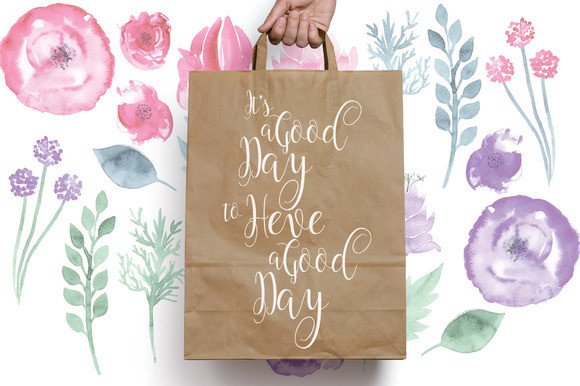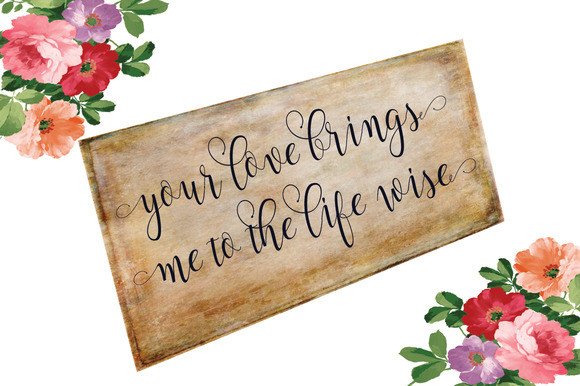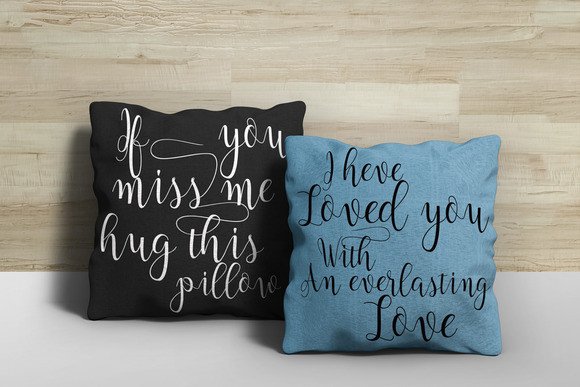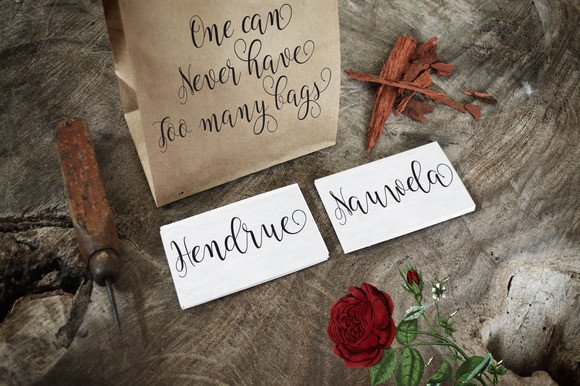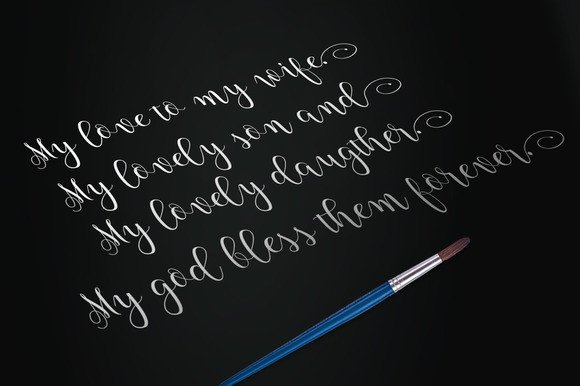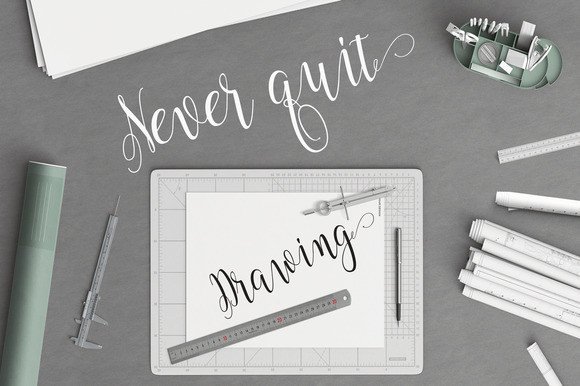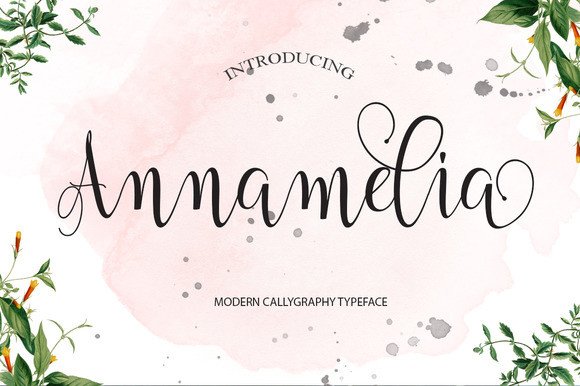
Introducing Annamelia Font: A Handmade Calligraphy Marvel for Modern Designs
In the realm of typography, few fonts manage to capture the essence of handcrafted elegance while being versatile enough for modern design applications. Annamelia Font stands out as a beacon of uniqueness, offering a refreshing blend of natural writing styles and contemporary flair. This article delves into the characteristics, applications, and benefits of using Annamelia Font in your design projects, making it a must-read for designers, crafters, and typography enthusiasts alike.
The Unique Charm of Annamelia Font
Annamelia Font is a handmade font that brings to the table a distinctive form of calligraphy. Unlike generic, machine-generated fonts, Annamelia boasts a personal touch, reminiscent of handwritten texts. Its unique form of calligraphy is not just visually appealing but also evokes a sense of warmth and authenticity, making it perfect for designs that aim to connect with their audience on a more personal level.
Natural Writing Style
The writing style of Annamelia Font is remarkably natural, echoing the fluidity and slight imperfections of handwriting. This natural aesthetic ensures that the font doesn’t feel rigid or overly formal, allowing it to breathe life into any design. Whether you’re working on a branding project, a wedding invitation, or a packaging design, Annamelia’s natural vibe can add a layer of sophistication and charm that’s hard to achieve with more conventional fonts.
Perfect for Modern Designs
Annamelia’s versatility is one of its strongest suits, making it very suitable for modern designs. In today’s fast-paced digital landscape, designers are constantly on the lookout for fonts that can keep up with the evolving trends while maintaining a timeless appeal. Annamelia strikes the perfect balance, offering a fresh yet classic look that can complement a wide range of design aesthetics.
Applications of Annamelia Font
The applications of Annamelia Font are vast and varied. Here are a few areas where it truly shines:
- Branding and Logotypes: Annamelia’s unique character makes it an excellent choice for branding projects. Its distinctive look can help create memorable logos and brand identities that stand out in a crowded market.
- Wedding and Event Stationery: The font’s elegant and personal feel makes it perfect for wedding invitations, save-the-date cards, and other event stationery. It adds a touch of romance and sophistication to any celebration.
- Packaging Design: For brands looking to add a personal touch to their packaging, Annamelia can be a great choice. It can help make products feel more approachable and unique.
- Digital Content: In the realm of digital content, such as blogs, social media posts, and newsletters, Annamelia can add a layer of personality and warmth, making the content more engaging to readers.
Why Choose Annamelia Font?
Choosing Annamelia Font for your design projects comes with several benefits:
- Uniqueness: Annamelia offers a level of uniqueness that’s hard to find in more commonly used fonts, helping your designs stand out.
- Versatility: Its natural and elegant look makes it suitable for a wide range of design applications.
- Emotional Connection: The handmade, calligraphic nature of Annamelia can help create an emotional connection with your audience, making your designs more impactful.
| Font Name | Annamelia Font |
| Author | Polem |
Annamelia Font is a gem for designers and crafters looking to infuse their projects with a touch of handmade elegance and modern appeal. Its unique form of calligraphy, natural writing style, and versatility make it an excellent choice for a variety of design applications. Whether you’re aiming to create a lasting impression with a brand identity, add a personal touch to event stationery, or simply looking for a font that can bring a fresh perspective to your digital content, Annamelia Font is definitely worth considering.
Embracing Annamelia Font in your design projects not only elevates the aesthetic quality of your work but also offers a way to connect with your audience on a more personal level. In the world of typography, where fonts can make or break the visual appeal of a design, Annamelia stands out as a beautifully crafted choice that combines the best of both worlds: the elegance of calligraphy and the freshness of modern design.